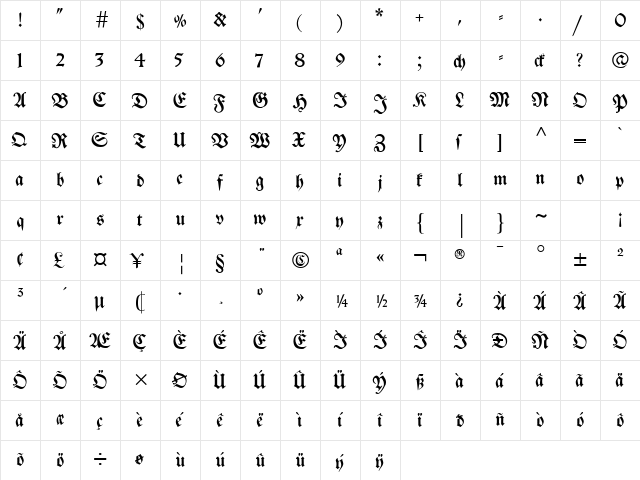
Breitkopf Fraktur Regular
Design Context for Breitkopf Fraktur Typeface
Breitkopf Fraktur channels the dramatic heritage of Fraktur and Gothic scripts, bringing a sense of historical gravitas to any design.
Well-suited to band logos, craft beer branding, tattoo lettering, and heritage-themed identities.
Font Pairing: Pair with a clean neutral sans-serif for body copy to let Breitkopf Fraktur's character lead without overwhelming the composition.
Pro Tip: Use Breitkopf Fraktur sparingly at large sizes. Even a single word set in blackletter can define the visual register of an entire design.